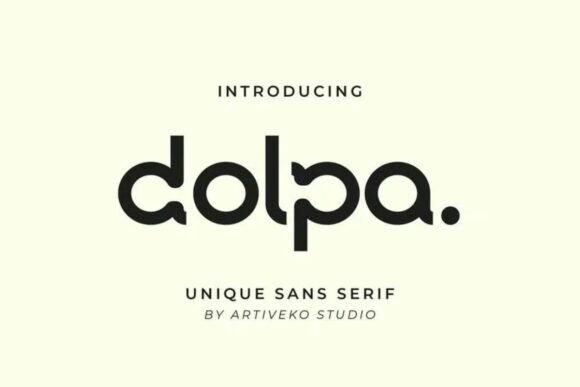
Dolpa Font: Elevate Your Typography with a Sleek and Contemporary Sans Serif
In the world of typography, fonts play a crucial role in conveying messages, expressing emotions, and establishing brand identities. With the vast array of fonts available, finding the perfect one that embodies clarity, balance, and timeless appeal can be a daunting task. However, if you’re looking for a font that seamlessly blends modernity with sophistication, look no further than Dolpa Font. Designed to bring a touch of elegance and professionalism to your typography, Dolpa is a sleek and contemporary sans serif font that is sure to elevate your design game.
Key Features of Dolpa Font
- Smooth Curves: Dolpa’s smooth curves add a touch of warmth and approachability to your typography, making it perfect for designs that require a friendly yet professional tone.
- Geometric Construction: The font’s geometric construction provides a sense of stability and balance, ensuring that your text remains clear and legible even at smaller sizes.
- Well-Spaced Letterforms: Dolpa’s well-spaced letterforms enhance readability, making it ideal for lengthy texts, articles, and editorial layouts.
Perfect for a Variety of Design Applications
Dolpa Font is an incredibly versatile font that can be used across a range of design applications, including:
- Branding: Establish a strong brand identity with Dolpa’s modern and professional aesthetic.
- Editorial Layouts: Add a touch of sophistication to your articles, magazines, and newspapers with Dolpa’s elegant typography.
- Packaging: Make a lasting impression with Dolpa’s clean and contemporary design, perfect for product packaging and labels.
- Website Design: Enhance your website’s typography with Dolpa’s smooth curves and geometric construction, ensuring a seamless user experience.
- Social Media Graphics: Elevate your social media presence with Dolpa’s modern and professional font, perfect for graphics, posts, and stories.
The Benefits of Using Dolpa Font in Your Typography
By incorporating Dolpa Font into your typography, you can expect a range of benefits, including:
- Improved Readability: Dolpa’s well-spaced letterforms and clear design ensure that your text remains easy to read, even at smaller sizes.
- Enhanced Professionalism: Dolpa’s modern and sophisticated aesthetic instantly elevates your design, making it perfect for professional and business applications.
- Timeless Appeal: Unlike trendy fonts that quickly become outdated, Dolpa’s classic design ensures that your typography remains timeless and relevant.
Tips for Getting the Most Out of Dolpa Font
To maximize the impact of Dolpa Font in your design, consider the following tips:
- Experiment with Font Sizes: Dolpa’s clear design ensures that it remains legible even at smaller sizes, so don’t be afraid to experiment with different font sizes to create visual hierarchy.
- Pair with Other Fonts: Dolpa pairs well with a range of fonts, so try combining it with other sans serif or serif fonts to create a unique typography style.
- Pay Attention to Line Spacing: Ensure that your text remains easy to read by paying attention to line spacing and adjusting it accordingly.
In conclusion, Dolpa Font is a sleek and contemporary sans serif font that is sure to elevate your typography. With its smooth curves, geometric construction, and well-spaced letterforms, Dolpa is perfect for a range of design applications, from branding and editorial layouts to packaging and website design. By incorporating Dolpa into your typography, you can expect improved readability, enhanced professionalism, and a timeless appeal that will leave a lasting impression on your audience.